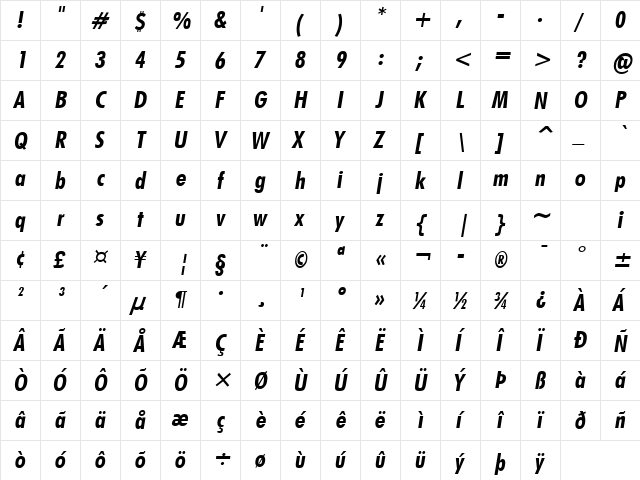
Futuri Condensed Bold Oblique Font Preview
Design Context for Futuri Condensed Typeface
Futuri Condensed channels digital-age aesthetics through its sharp, structured letterforms — ideal for brands that want to signal innovation. The dynamic lean of this cut emphasises speed and emphasis in any layout. The heavy weight commands attention and anchors typographic hierarchies. Its narrow stance lets it pack a punch even in space-constrained designs.
Pro Tip: Try Futuri Condensed with generous letter-spacing in UI labels and navigation — the geometric forms benefit from room to breathe.